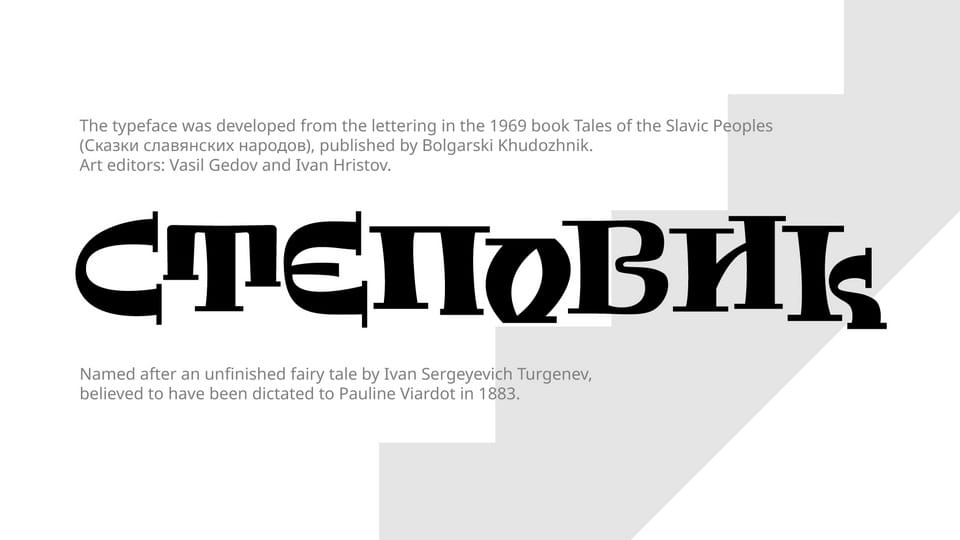
Stepovik SP Font › Fontesk – Download Grátis
Download Stepovik SP font, a display typeface with a folk-inspired character and a lively, slightly “dancing” rhythm. Its design inherits and reinterprets the Slavic ustav tradition